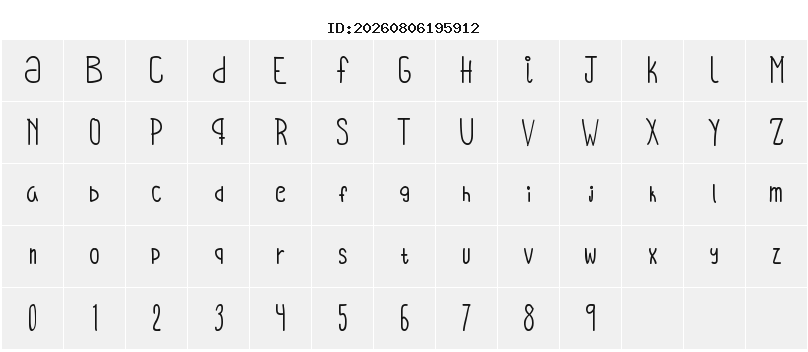
Oh_Hello_Vickie Preview
• Font Name: Oh_Hello_Vickie
• Full Font Name: Oh_Hello_Vickie
About Oh_Hello_Vickie.ttf
Oh_Hello_Vickie.ttf is a modern, elegant sans-serif font designed for ultimate readability and visual harmony. Perfect for branding, headlines, web design, and print materials.